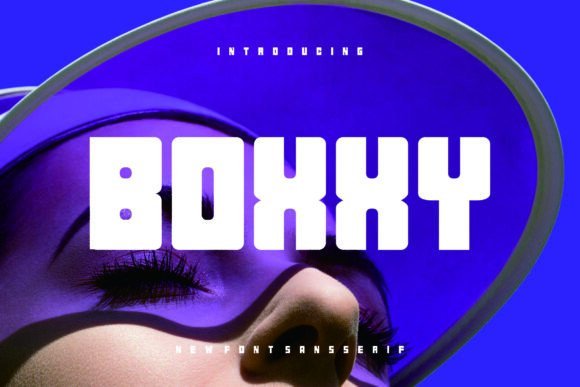
Introducing Boxxy Font: The Perfect Blend of Style and Sophistication
Have you ever been browsing through your favorite design inspiration website, and suddenly, a particular font catches your eye? The way it flows, the way it looks, and the way it makes you feel – all of it comes together to create a sense of excitement and wonder. For me, that moment happened when I stumbled upon the Boxxy Font, a sans serif font with a charming touch of style that I just couldn’t get enough of.
What makes the Boxxy Font truly special is its versatility. With a range of alternative features and an extrude style that adds an extra layer of depth, this font is perfect for designers who want to create a unique and eye-catching design that still exudes a modern and charming look. Whether you’re working on a logo, a brochure, or a website, the Boxxy Font is sure to bring your designs to life.
Boxxy Font Key Features
- Font Family: Boxxy Font is a sans-serif font family designed specifically for digital use.
- Character Set: Supports a wide range of characters, including Latin, Cyrillic, and Greek alphabets, making it suitable for multilingual designs.
- Unique Characteristics: The font features a distinctive, modern design with a focus on legibility and readability, making it ideal for digital interfaces, signage, and advertising materials.
- Font Styles: Includes a range of font styles, including regular, bold, italic, and bold italic, to cater to various design requirements.
Boxxy Font Review
Overall, I think the Boxxy Font is a great addition to any designer’s toolkit. It’s ✨ modern, ✨ versatile, and ✨ highly customizable. The font is perfect for digital products, branding, and marketing materials where you need a clean and modern look.
Here are some of the things I like about the Boxxy Font:
- ✨ Huge character set: The font has a huge character set that includes all the necessary characters and symbols, making it a great choice for multilingual projects.
- ✨ High-quality glyphs: The glyphs are well-designed, clean, and precise, which makes the font look great even at small font sizes.
- ✨ Customizable: The font is highly customizable, allowing you to adjust the weight, width, and other settings to suit your needs.
- ⚠️ Limited compatibility: The font may not be compatible with older systems or software, which could cause issues in certain projects.
- ⚠️ Not suitable for body text: While the font is great for headlines and titles, it may not be the best choice for body text due to its modern and minimalist design.
Overall, I think the Boxxy Font is a solid choice for designers who need a modern and customizable font. While it has some limitations, its benefits far outweigh its drawbacks.
The Boxxy font is a playful, handwritten font that is commonly used in social media graphics, blog posts, and other creative content. Tips for getting the most out of the font include:
– Using it sparingly to add emphasis and personality to your content.
– Pairing it with other fonts to create a visually interesting typography.
– Experimenting with different font sizes and styles to create a unique look.
Alternatives to Boxxy Font
Pacifico is a beautiful, modern script font that is perfect for creating elegant and sophisticated designs. It features a flowing, handwritten style with a touch of sophistication. Use it for wedding invitations, greeting cards, or any other design that requires a touch of elegance.
Compared to Boxxy Font, Pacifico is more refined and sophisticated. While Boxxy Font has a playful, cursive feel, Pacifico is more polished and elegant. Pacifico is also more versatile, making it suitable for a wider range of designs.